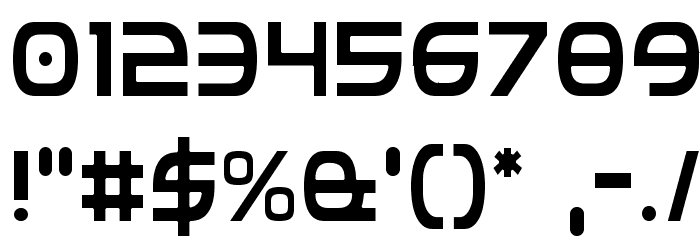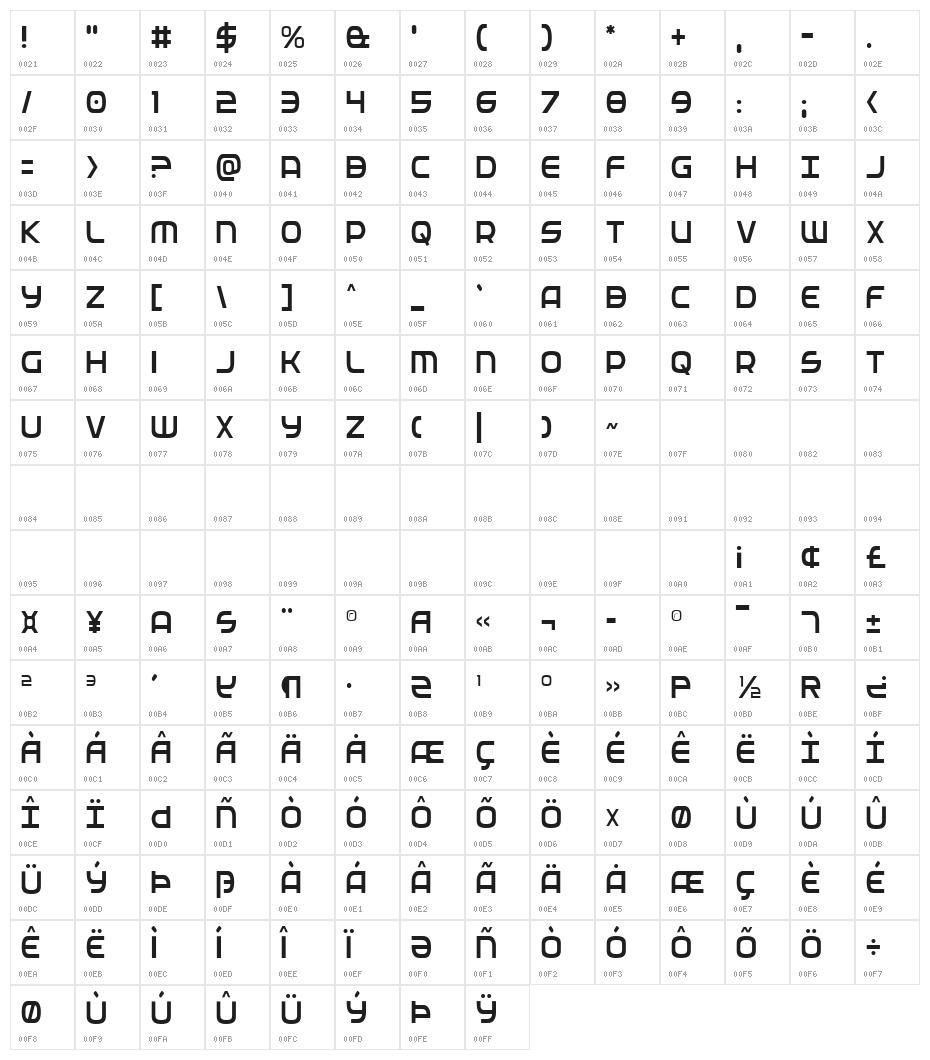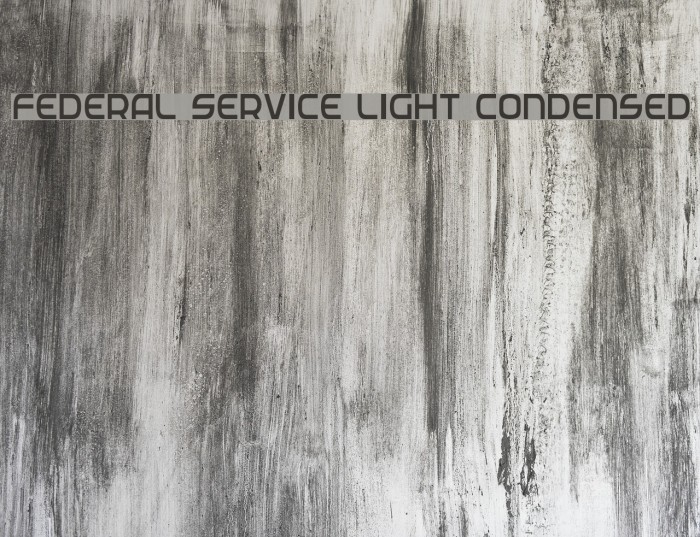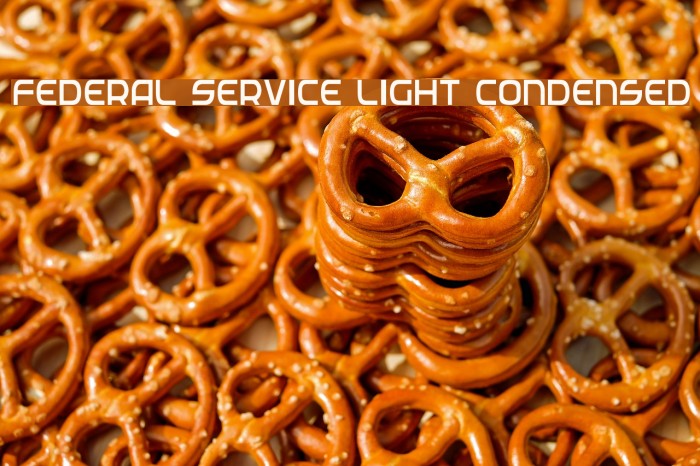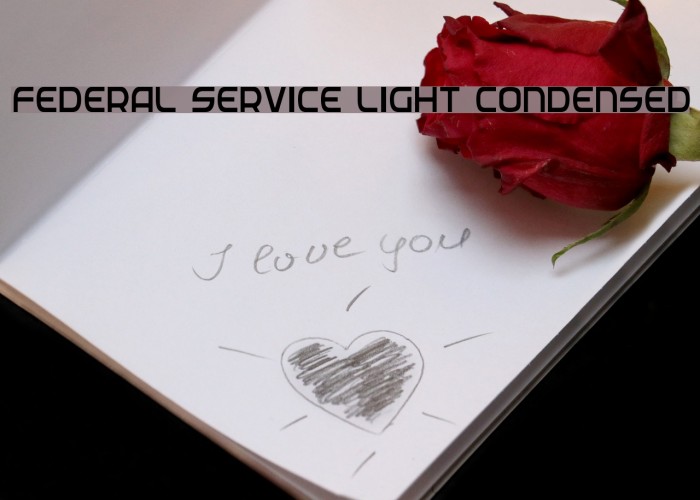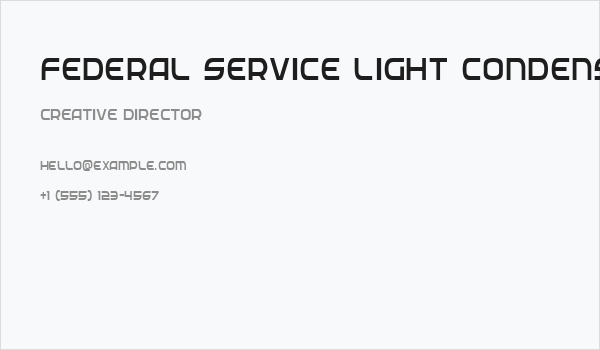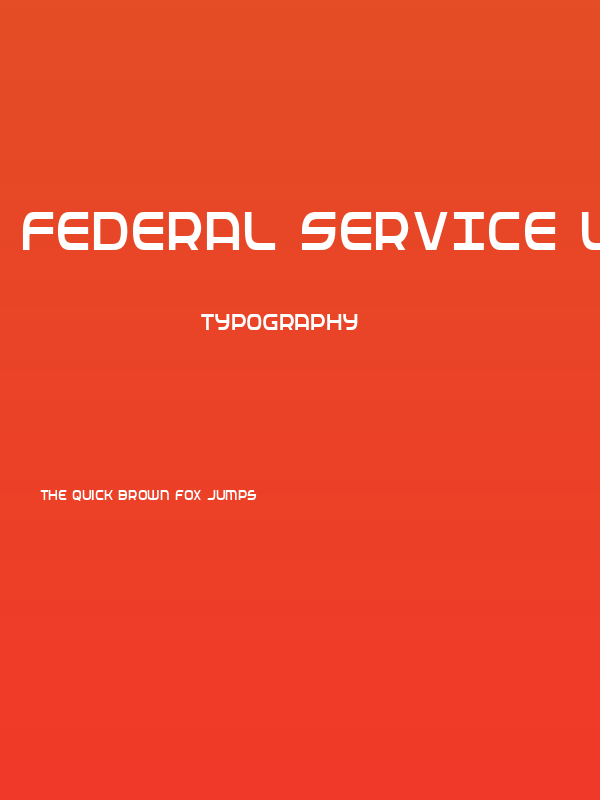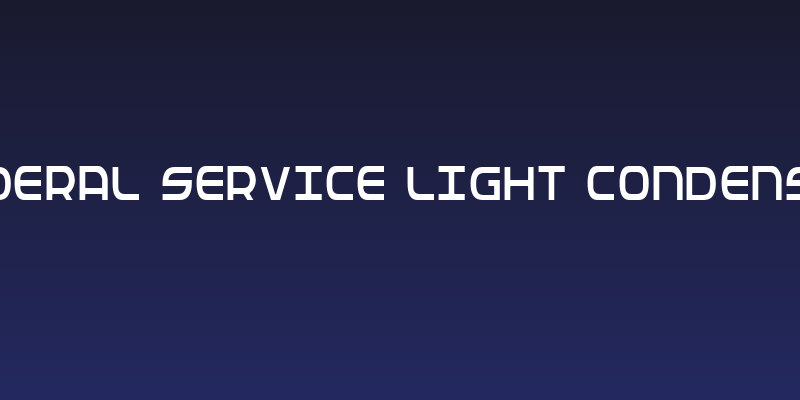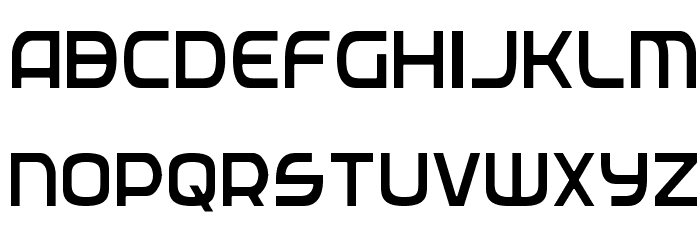
Federal Service Light Condensed Font
Federal Service Light Condensed Description
This typeface features a clean, geometric design with a modern aesthetic. The characters are uniformly structured, with a consistent stroke width that gives it a sleek and professional appearance. The condensed nature of the font allows for efficient use of space, making it ideal for settings where space is limited. The rounded edges of the characters add a touch of softness, balancing the overall sharpness of the design. This font is highly legible, even at smaller sizes, and its simplicity makes it versatile for various applications.